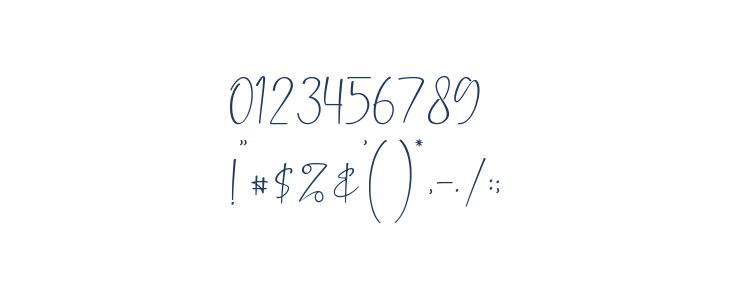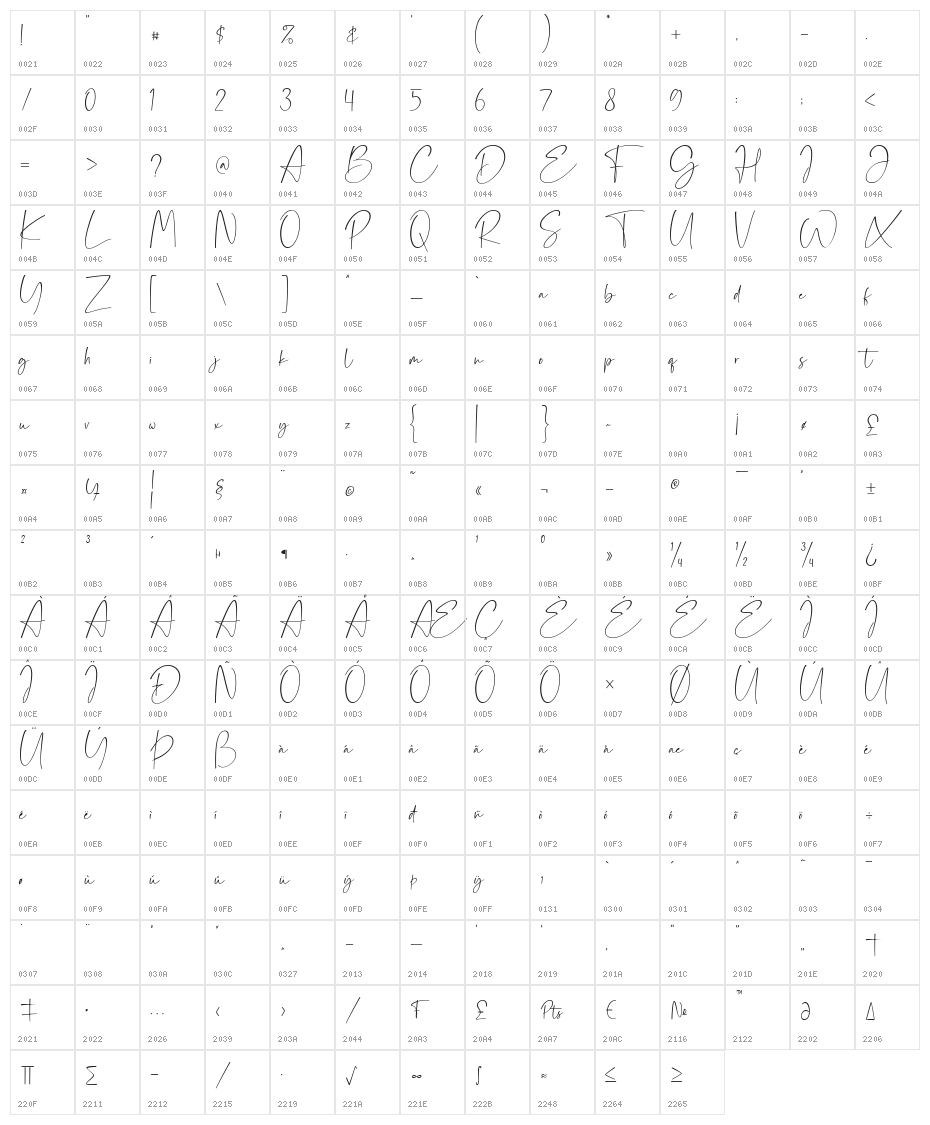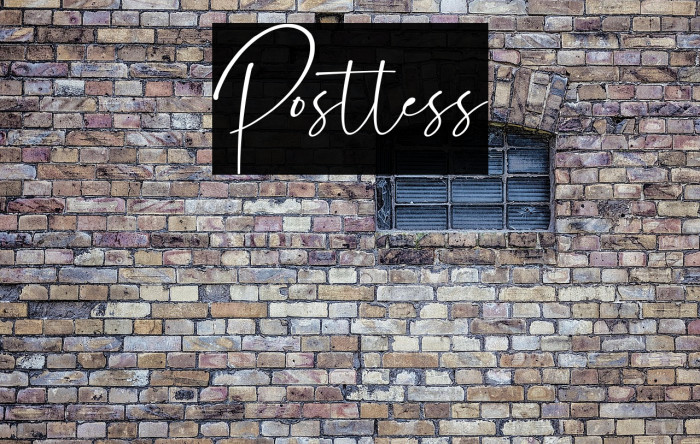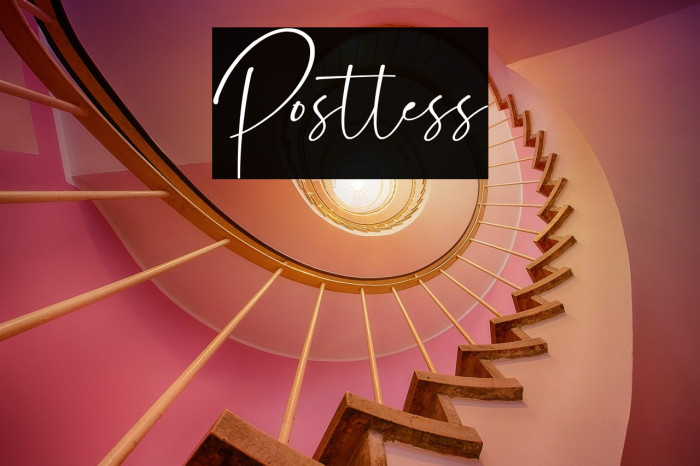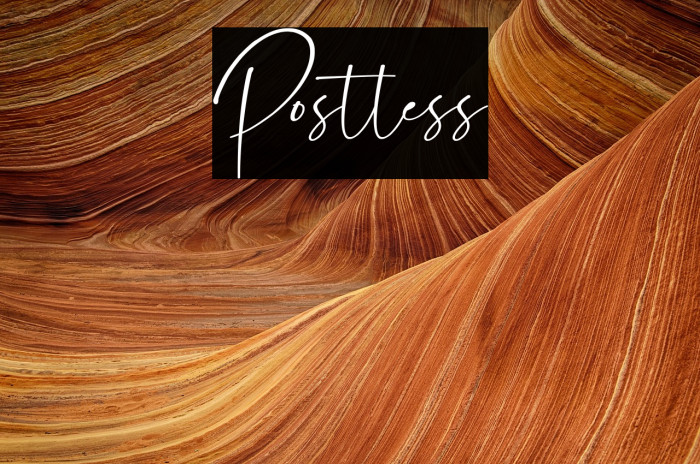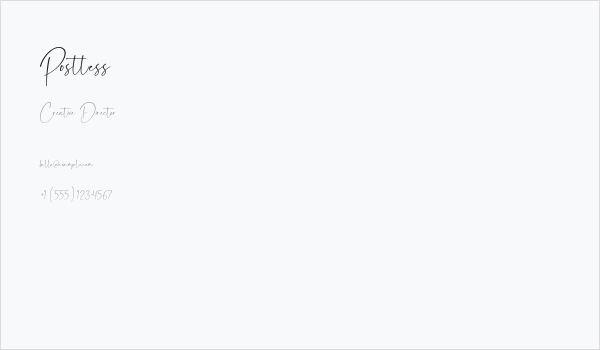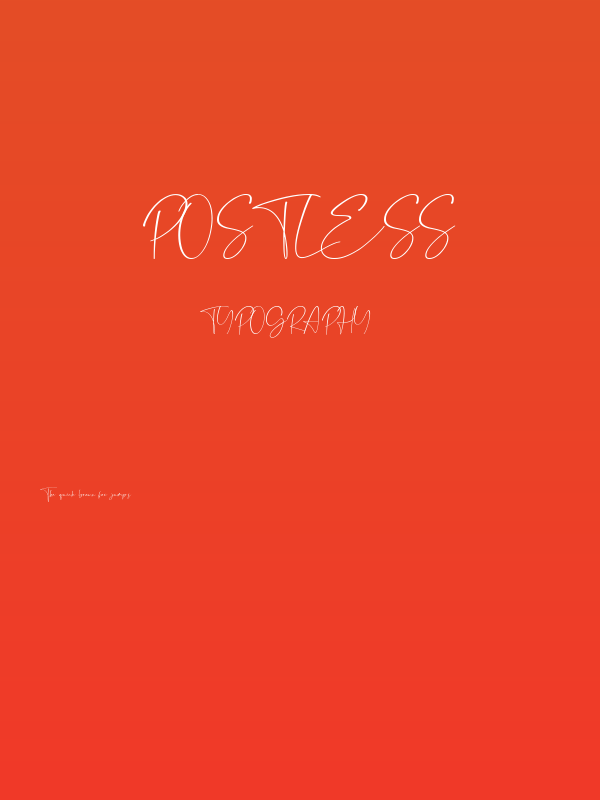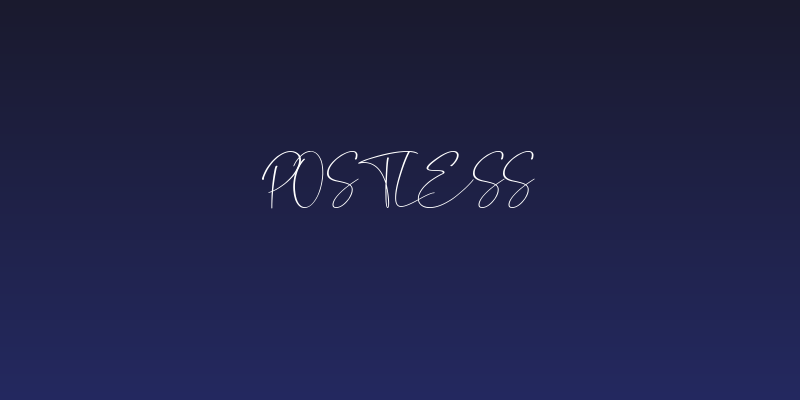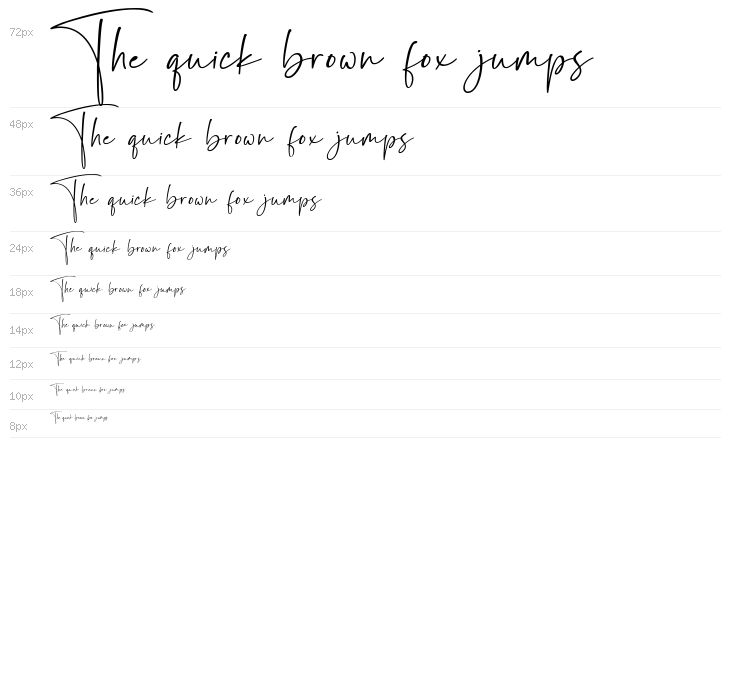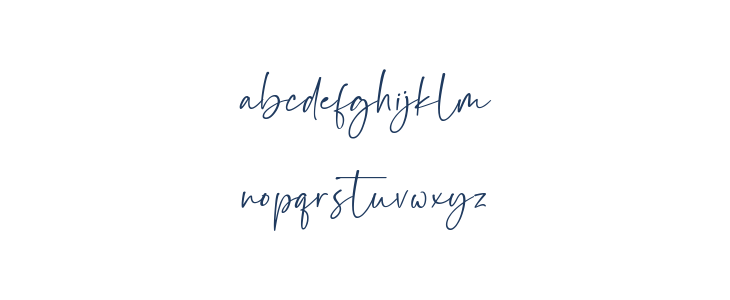
Postless Font
Postless Description
This font features a playful and elegant handwritten style, characterized by its fluid and dynamic strokes. The uppercase letters are tall and slender, with a slight slant that adds a touch of sophistication. The lowercase letters maintain a consistent flow, with some characters featuring unique loops and curves that enhance its artistic appeal. The numerals are clear and easy to read, while the special characters blend seamlessly with the overall aesthetic. This font exudes a sense of creativity and personal touch, making it ideal for projects that require a humanistic and approachable feel.
| Use Case | Logos, Invitations, Personal Branding |
| Proposed Projects | Ideal for wedding invitations, personal branding, greeting cards, and creative projects that require a personal touch. |